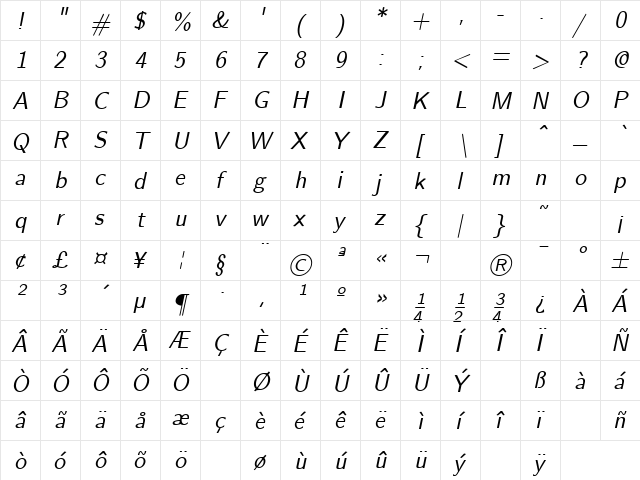
Lotto Love 4 Oblique
Design Context for Lotto Love 4 Typeface
Lotto Love 4 is a composed and adaptable typeface that performs quietly and consistently across a wide range of design contexts. The slanted form adds forward momentum and visual energy.
Pro Tip: Try Lotto Love 4 for annotation and caption copy alongside an upright companion — the contrast in angle creates a dynamic but ordered typographic system.